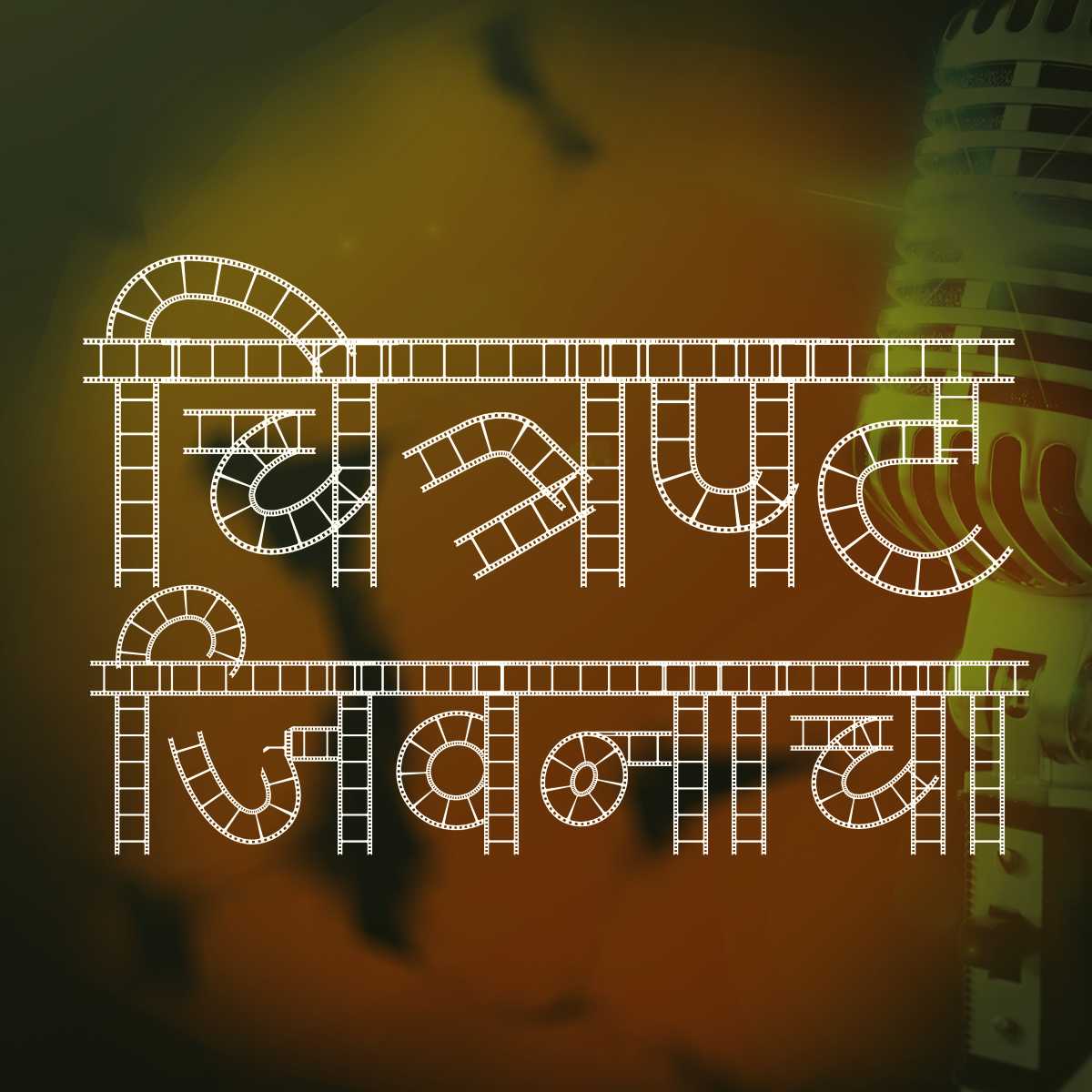
AMS Cinema
Lights, camera, action! Introducing AMS Cinema, a decorative font that brings a touch of Hollywood glamour to your designs. Ideal for those seeking free AMS fonts, AMS Cinema adds a touch of vintage charm to your projects.
About AMS Cinema Font
Lights, camera, action! Introducing AMS Cinema, a decorative font that brings a touch of Hollywood glamour to your designs. Ideal for those seeking free AMS fonts, AMS Cinema adds a touch of vintage charm to your projects. This decorative font combines elegance with functionality, making it perfect for various design applications.
AMS Cinema is a professionally crafted decorative typeface that brings clarity and style to your projects. Designed with attention to detail, it supports hindi and marathi characters flawlessly.
Whether you're working on posters, books-publications, certificates-awards, or other creative projects, AMS Cinema delivers consistent performance across both digital and print media. This carefully designed typeface ensures readability and visual appeal in all your design work.
About AMS Cinema Typography Style
AMS Cinema is a professionally crafted decorative font that exemplifies modern Hindi typography design. This free font is perfect for designers seeking impactful poster and display applications.
Available in 1 weight and supporting hindi, marathi scripts, AMS Cinema offers exceptional versatility for both digital and print media. Whether you're working on posters, books-publications, certificates-awards, this carefully designed typeface ensures consistent quality and professional results across all your typography projects.